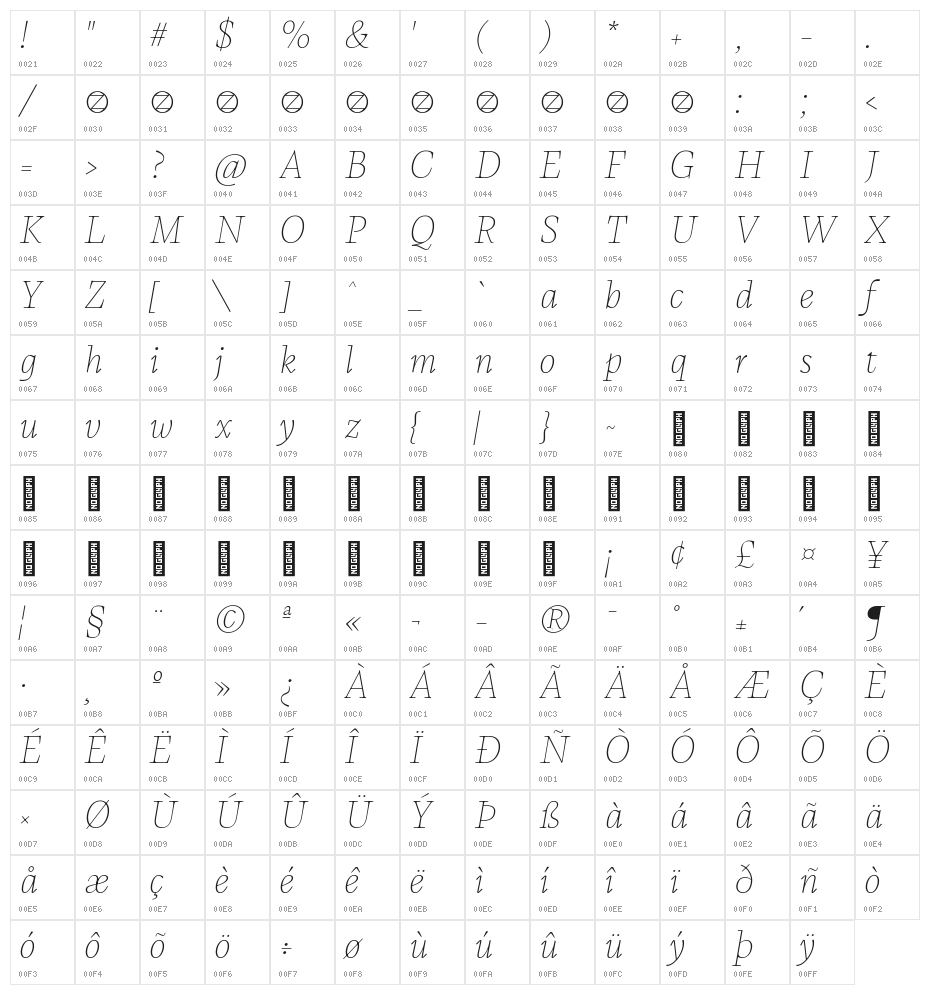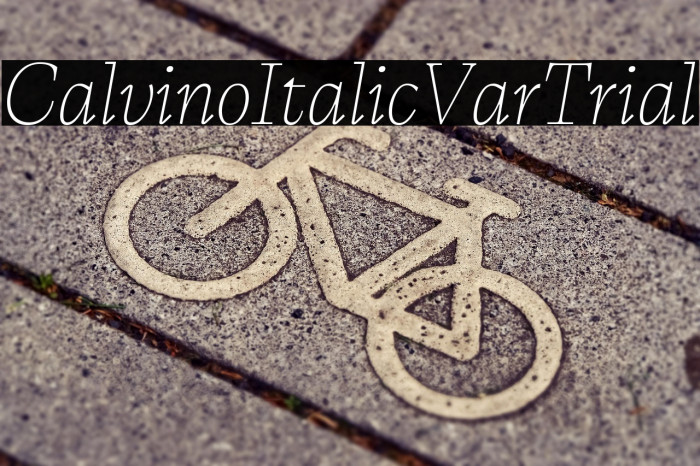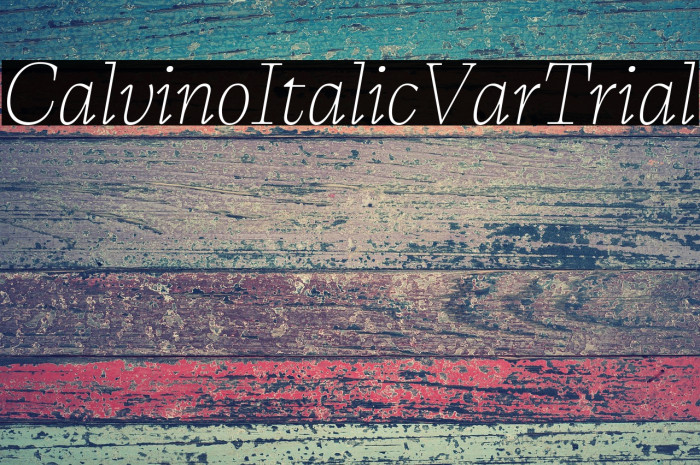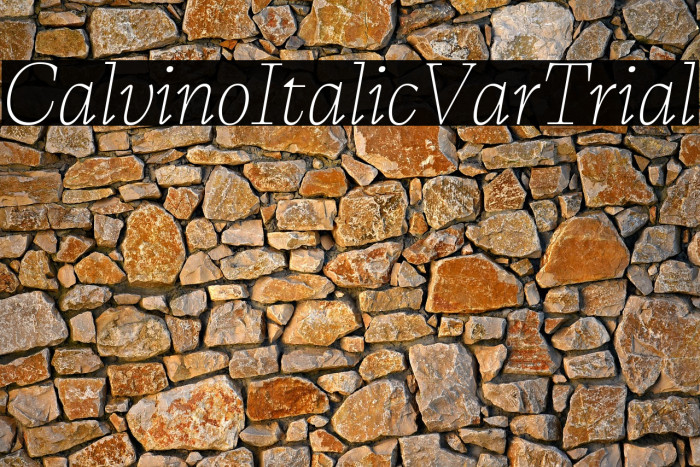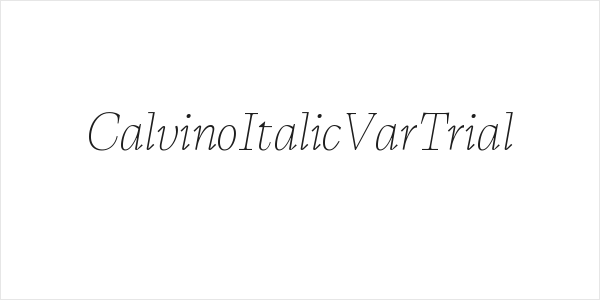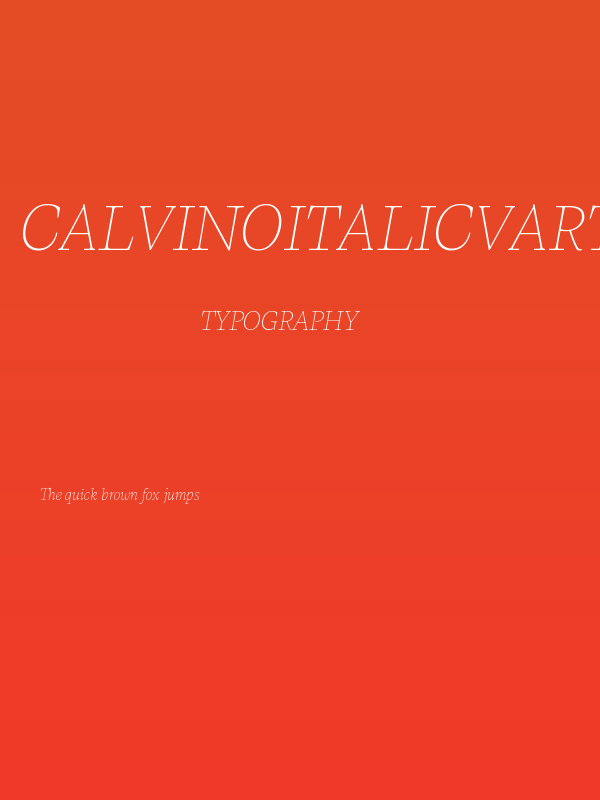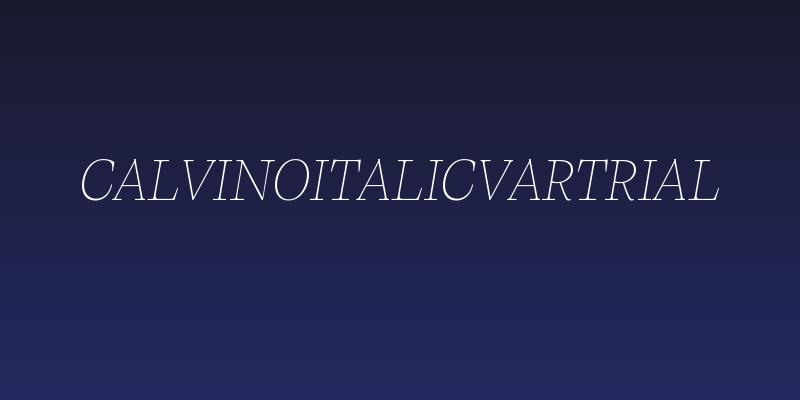
CalvinoItalicVarTrial Font
CalvinoItalicVarTrial Description
This elegant typeface features a refined italic style with a classic serif design. The characters are gracefully slanted, providing a sense of motion and sophistication. The uppercase letters are tall and stately, while the lowercase letters maintain a consistent flow with smooth curves and delicate serifs. The numerals and special characters are crafted with the same attention to detail, ensuring a cohesive look across all elements. The font's overall appearance is both timeless and versatile, making it suitable for a variety of design applications.